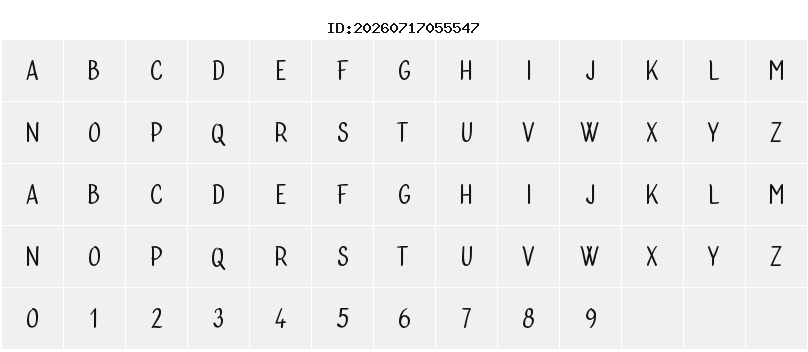
Bublina the Dog Preview
• Font Name: Bublina the Dog
• Full Font Name: Bublina the Dog
• Version: Version 0.22 December 21, 2014
• Designer: Vít Čondák
About Bublina the Dog.ttf
Bublina the Dog.ttf is a modern, elegant sans-serif font designed for ultimate readability and visual harmony. Perfect for branding, headlines, web design, and print materials.